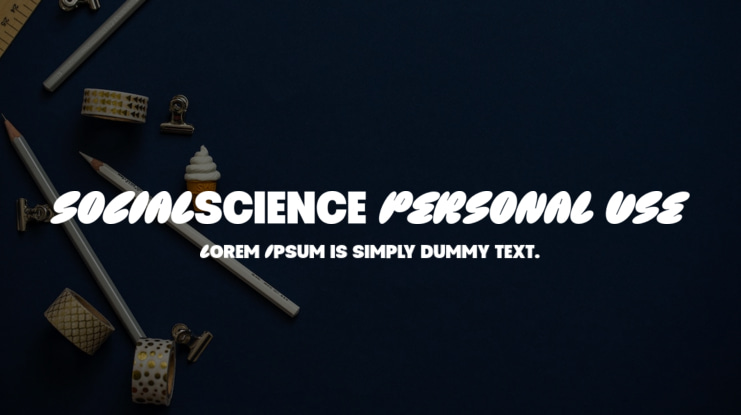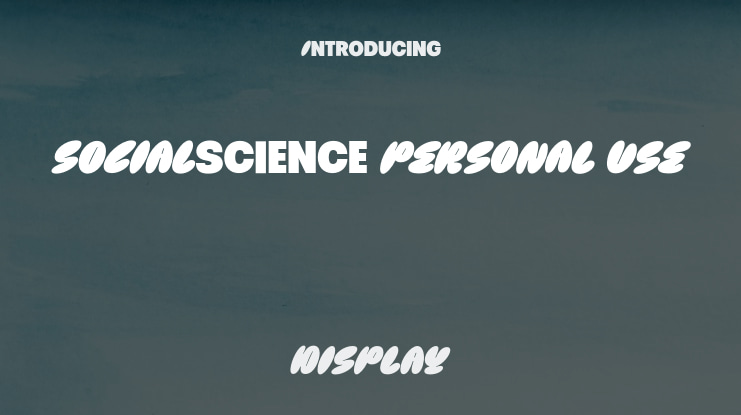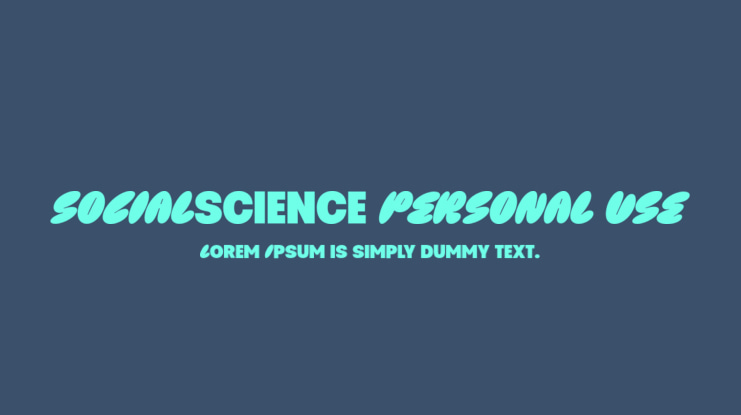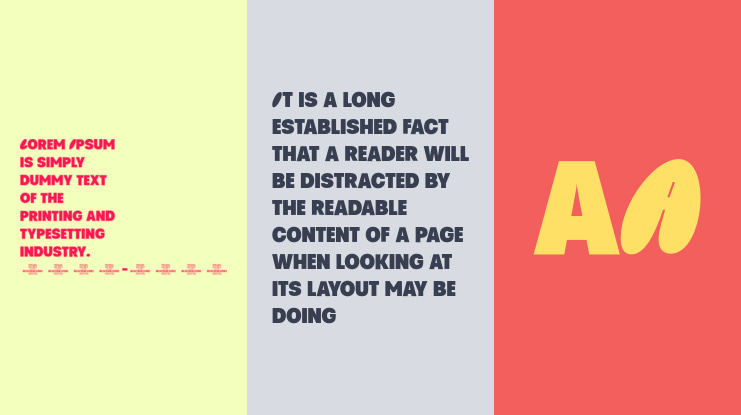
Social Science PERSONAL USE Font
Please note that this font is intended for personal use only. To buy a commercial license, please go to http://mn.sg/social-science. Social Science is a contemporary fusion typeface that combines graffiti-inspired bubbles for an urban vibe with a straight and confident sans representing branding stability. For any queries, check out www.mansgreback.com/faq.